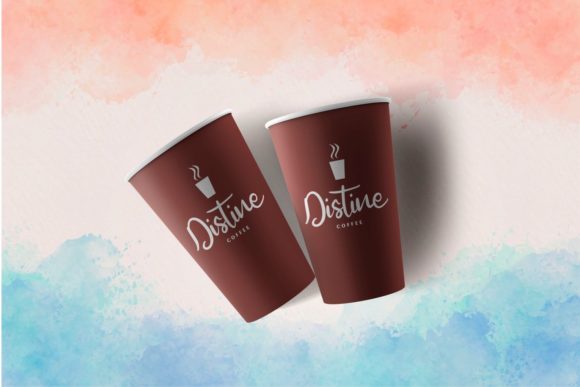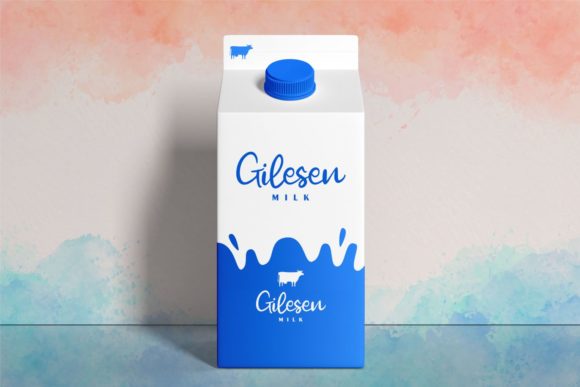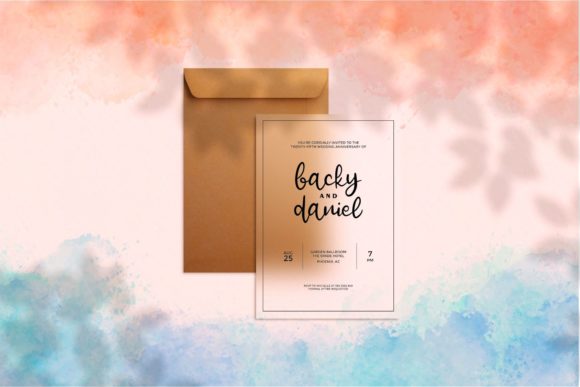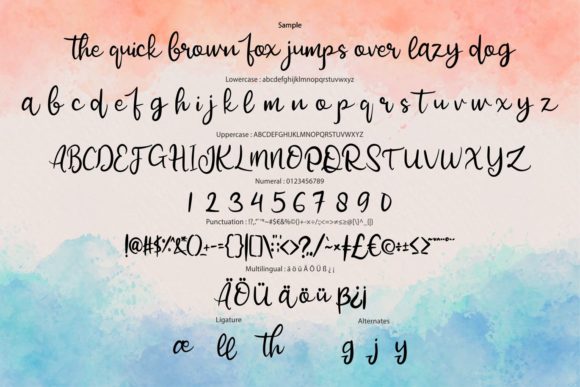
Risheil Font
About Risheil Font
“Risheil” sounds like a jolly and round lettered handwritten font that exudes joy and sweetness. With its distinct and sweet style, this font is a masterpiece that adds a touch of playfulness and charm to your designs.
By using “Risheil” in your designs, you can achieve a sense of happiness and versatility. Its handwritten style adds a personal and artistic touch, making your creations feel more unique and captivating.
This font’s jolly and round lettered nature makes it suitable for various design contexts. Whether you’re working on greeting cards, invitations, posters, branding, or any other project, “Risheil” can effortlessly enhance the visual appeal and create a cheerful atmosphere.
With “Risheil,” you have a font that adds a touch of sweetness and versatility, making your projects visually stunning and captivating.
Incorporate “Risheil” into your designs, and you’ll see how it brings a sense of joy and playfulness, making your creations truly exceptional and heartwarming.
While embracing the jolly and round lettered vibe of “Risheil,” remember to maintain readability and legibility. Proper spacing and alignment between letters ensure that the text remains clear and easy to read, preserving the font’s overall sweetness and charm.
In conclusion, “Risheil” is a jolly and round lettered handwritten font that adds a touch of joy and sweetness to your designs. Embrace its distinct and sweet style, and let it be the font that enhances the versatility and playfulness of your greeting cards, invitations, posters, branding, and other creative projects. With “Risheil,” your designs will exude happiness and captivate the hearts of your audience, making them truly exceptional and visually captivating.